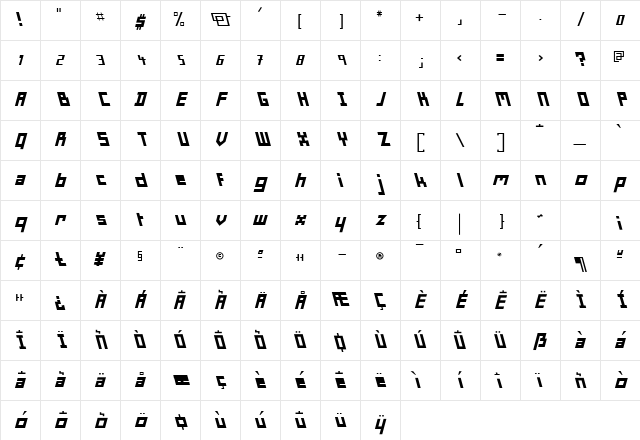
Minimum Regular
Design Context for Minimum
Minimum is a composed and adaptable typeface that performs quietly and consistently across a wide range of design contexts.